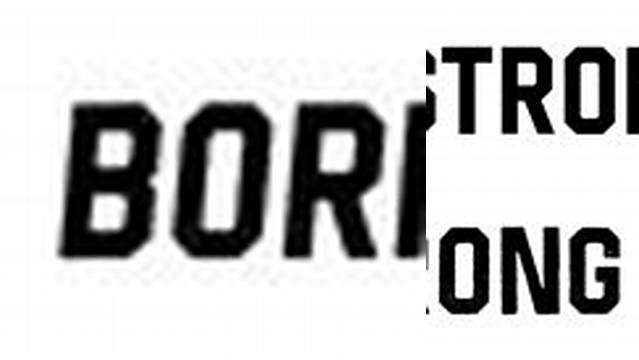
Born Strong Font: Free Bold, Italic, & Rough Styles!
Hey guys! Are you on the hunt for a font that screams strength, boldness, and a touch of ruggedness? Look no further! The born strong bold italic rough font is exactly what you need to inject some serious character into your projects. Whether you're designing a logo, crafting a poster, or revamping your website, this font is a game-changer. And the best part? You can download it for free! Let's dive into everything this fantastic font has to offer and how you can make the most of it.
1. Understanding the Born Strong Font Family
The born strong bold italic rough font free download typically encompasses a family of fonts, each with its unique flair. This family often includes regular, bold, italic, and rough variations, giving you a versatile toolkit for your design needs. Imagine the possibilities! The regular style is perfect for body text, while the bold version commands attention in headlines. Italic adds a touch of elegance, and the rough style brings a gritty, textured feel. Understanding these variations is crucial for leveraging the font's full potential. Think about how each style can contribute to your overall design aesthetic. For instance, using the bold style for titles and the italic style for quotes can create a dynamic and engaging visual hierarchy. Experiment with different combinations to see what works best for your project.
2. Key Features of Born Strong Bold Fonts
The born strong bold aspect of this font is its defining characteristic. These fonts are designed to make a statement, with thick, commanding strokes that grab the viewer's attention. They're perfect for headlines, logos, and any design element where you want to convey power and confidence. When you're working with born strong bold fonts, consider the impact of the weight. The heavier the weight, the more prominent the font will appear. Use this to your advantage by reserving the boldest styles for key elements in your design. The strength of a bold font also lies in its ability to stand out against various backgrounds. Whether it's a light or dark backdrop, a well-designed bold font will always maintain its legibility and visual presence. This makes it a reliable choice for diverse applications.
3. The Allure of Born Strong Italic Fonts
The born strong italic version adds a touch of sophistication and dynamism to the robust nature of the born strong family. Italic fonts, with their slanted characters, bring a sense of movement and elegance to your text. They're ideal for emphasizing key phrases, adding subheadings, or creating a visual contrast within your design. The subtle slant of the italic typeface can also evoke a feeling of creativity and artistry. When incorporating born strong italic fonts into your projects, think about the message you want to convey. The italic style can add emphasis without overwhelming the overall design, making it a great choice for quotes, captions, or any text that needs to stand out without being too forceful. Experiment with pairing italic styles with regular or bold styles to create a balanced and visually appealing layout.
4. Embracing the Rough Texture in Born Strong Fonts
If you're after a raw, authentic feel, the born strong rough texture is where it's at. This style often incorporates distressed edges and uneven lines, giving your text a hand-drawn or vintage appearance. It's perfect for designs that need a touch of grit and character. The born strong rough font can transform a clean, modern design into something with depth and personality. Think about using it for posters, t-shirts, or branding materials that aim to convey a sense of history or craftsmanship. The rough texture adds a tactile quality to your designs, making them more engaging and memorable. However, it's important to use this style judiciously. Overusing the rough texture can make your text difficult to read, so balance is key. Combine it with cleaner fonts to maintain legibility while still capturing the desired aesthetic.
7. Using Born Strong Font in Logos
Logos are the face of a brand, and choosing the right font is crucial. A born strong bold italic rough font can be an excellent choice for logos that need to convey strength, reliability, and a touch of edginess. Think about brands in the fitness, outdoor, or industrial sectors – these fonts can be a perfect fit. When using born strong fonts in logos, consider the overall brand identity. A bold font can communicate confidence, while a rough texture can add a unique, memorable touch. Experiment with different styles and weights to find the perfect balance. Also, make sure the font is legible at various sizes, from business cards to billboards. A strong logo font should be versatile and scalable. Pairing the born strong font with a complementary font can also enhance the logo's visual appeal. Use a cleaner, simpler font for taglines or supporting text to create a balanced and professional look.
8. Creating Eye-Catching Headlines with Born Strong
Headlines are your first chance to grab a reader's attention, and a born strong bold italic rough font can help you make a powerful first impression. Whether you're designing a website, a poster, or a social media graphic, a strong headline font is essential. The boldness of the born strong font instantly draws the eye, while the italic and rough styles can add a unique twist. When crafting headlines, think about the message you want to convey. A bold font can emphasize the importance of the headline, while the italic style can add a touch of sophistication. The rough texture can give your headline a more organic and handcrafted feel. Experiment with different font sizes and weights to see what works best for your design. Don't be afraid to mix and match styles within the same headline to create visual interest. A well-designed headline can make all the difference in capturing your audience's attention.
9. Designing Posters with Born Strong Bold Fonts
30. Tools and Software for Font Management
Managing your fonts effectively is essential for maintaining a smooth workflow and ensuring consistency in your designs. There are several tools and software options available to help you. Font management software allows you to organize, activate, and deactivate fonts. Examples include FontExplorer X Pro and Suitcase Fusion. Font preview tools let you preview fonts before installing them. This can save you time and effort by allowing you to see how a font looks in different sizes and styles. Font organizers help you categorize and tag your fonts, making it easier to find the right font for your project. Cloud-based font services like Adobe Fonts and Google Fonts provide access to a vast library of fonts that can be easily used in your designs. Operating system font managers provide basic font management functionality. Windows and macOS both have built-in font management tools. Design software like Adobe Photoshop and Illustrator have font menus that allow you to browse and select fonts. Font websites often provide previews and character maps for their fonts. By using these tools and software, you can streamline your font management process and ensure that your designs are consistent and professional.